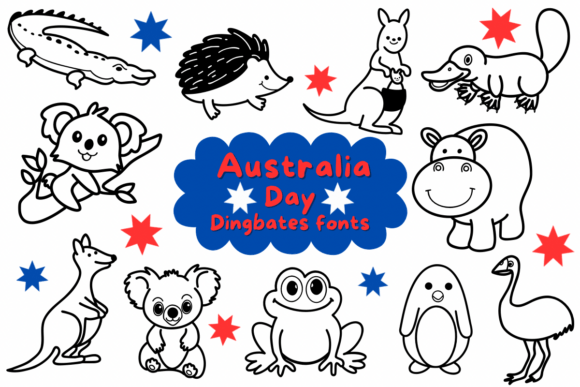
Get Ready to Roar into the World of Design with the Australia Day Font
Have you ever been brainstorming ideas for a design project and suddenly a spark of creativity hits you? It’s that moment when everything falls into place, and you can’t wait to bring your vision to life. For designers, that moment often comes when they stumble upon the perfect font. And for those looking to celebrate Australia Day in style, the Australia Day Font is the perfect find.
This fun, creative dingbat font features images of Australian animals, making it a playful way to add some Aussie charm to your designs. With cute and recognizable animals like kangaroos, koalas, and wombats decorating each letter or symbol, the Australia Day Font is a valuable tool for designers looking to add some personality to their work.
Australia Day Font Key Features
- Resolution: The font is designed for high-resolution displays, making it suitable for use on modern devices and printing.
- Unique Characteristics: The Australia Day font features a custom-designed letterform that reflects the country’s unique culture and identity.
Australia Day Font Review
First off, I have to say that I was a bit skeptical about reviewing a font specifically designed for a national holiday. But, I decided to dive in and see what Australia Day Font has to offer.
- Unique aesthetic: Australia Day Font has a distinct and vibrant design that’s perfect for adding a pop of color to your designs.
- Good legibility: Despite its playful design, the font is still easy to read, making it suitable for a wide range of applications.
- Customization options: The font comes with various style options, including bold and italic, which can be useful for creating visual hierarchy in your designs.
- Limited versatility: As the name suggests, Australia Day Font is specifically designed for celebrating Australia Day, which might limit its use in other contexts.
- No clear typography rules: The font’s design doesn’t seem to follow any clear typography rules, which might make it difficult to use in more formal or traditional designs.
Overall, Australia Day Font is a fun and playful font that’s perfect for adding some festive flair to your designs. While it has some limitations, it’s still a great option for anyone looking to celebrate Australia Day in style.
The Australia Day font is commonly used for:
– Celebrating Australia Day and other national holidays.
– Creating patriotic designs and graphics.
– Adding a touch of Australian flair to your branding and marketing materials.
Tips for Getting the Most Out of the Australia Day Font
– Use the font in combination with other Australian-themed elements, such as the Australian flag or kangaroo graphics.
– Experiment with different font sizes and styles to create visual interest.
– Use the font to create a cohesive brand identity and messaging.
Alternatives to Australia Day Font for Designers
Playfair Display is an elegant serif font suitable for formal and luxurious designs. It’s ideal for titles, headings, and other prominent text elements. This font offers a more refined and sophisticated look compared to Australia Day Font, which is more playful and casual. Use Playfair Display for high-end branding, invitations, and special occasions.
Great Vibes is a modern script font that adds a touch of elegance and sophistication to designs. It’s perfect for titles, quotes, and other text elements where a handwritten feel is desired. Compared to Australia Day Font, Great Vibes is more polished and refined, making it suitable for a wider range of design applications. Use Great Vibes for wedding invitations, event branding, and upscale packaging.